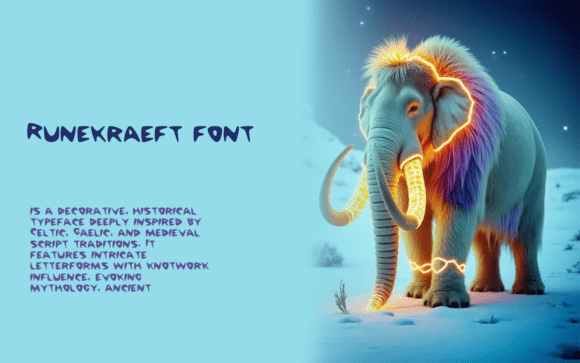
Introduction to Runekraeft Font
As you sit amidst a sea of blank pages, the cursor blinks, and your mind is flooded with the epic tales of old. The whispers of Celtic legends, the mystique of ancient runes, and the grandeur of mythic worlds beckon you to create something extraordinary. It’s in these moments that the right design resource can spark the imagination and transport you to realms both familiar and unknown.
Enter Runekraeft Font, a high-quality, intricately crafted typeface that embodies the essence of myth and magic. Perfect for designers seeking to infuse their creative projects with an air of mystique and wonder, Runekraeft Font offers a free download with a transparent background, allowing you to seamlessly integrate it into your designs. With its roots in Celtic heritage and echoes of sacred scripts, this design resource is a treasure trove of inspiration for those looking to create something truly unique.
Whether you’re crafting a heroic identity, designing a ritual branding, or simply seeking to add a touch of magic to your next project, Runekraeft Font is an invaluable resource that’s sure to transport your designs to new and exciting realms.
Key Features of Runekraeft Font
- High-quality font design ideal for creative projects, including fantasy and sci-fi themes.
- Transparent background, allowing for easy layering and customization in design applications.
- Includes a range of characters, including letters, numbers, and symbols, to cater to diverse design needs.
- Unique, hand-drawn style that adds a touch of personality to any creative project, making it stand out from more generic fonts.
Honest Review: Runekraeft Font
I recently had the chance to work with the Runekraeft Font, and I must say it’s a game-changer for any high-quality creative project. This font is perfect for designers looking to add a touch of mysticism to their designs.
- ✨ Unique and elegant design: The Runekraeft Font features intricate details and a transparent background that make it perfect for layering.
- ✨ Versatile: This font can be used for a wide range of creative projects, from branding to typography-based designs.
- ⚠️ Limited language support: The Runekraeft Font is available in a limited number of languages, which may be a limitation for designers working on multilingual projects.
- ⚠️ Not ideal for small text: The intricate details of this font may make it difficult to read when used in small text sizes.
Overall, I’m really impressed with the Runekraeft Font. Its unique design and transparent background make it a valuable addition to any designer’s toolkit. While it has some limitations, I believe it’s a great resource for designers looking to add some high-quality flair to their projects.
Introduction to Runekraeft Font
The Runekraeft Font is a high-quality design resource ideal for creative projects. Its unique aesthetic and transparent background make it a versatile addition to any design.
Getting the Most Out of Runekraeft Font
For the best results, use Runekraeft Font in combination with other design elements to create a cohesive and visually appealing design. Experiment with different font sizes, colors, and styles to achieve the desired look.
Runekraeft Font is suitable for a variety of creative projects, including:
- Print design
- Branding and logos
Does the Runekraeft Font include a transparent background, making it suitable for digital designs?
Yes, the Runekraeft Font includes a transparent background, making it an excellent choice for digital designs, such as website headers, social media graphics, and other digital media. This feature allows designers to easily combine the font with other design elements and backgrounds.